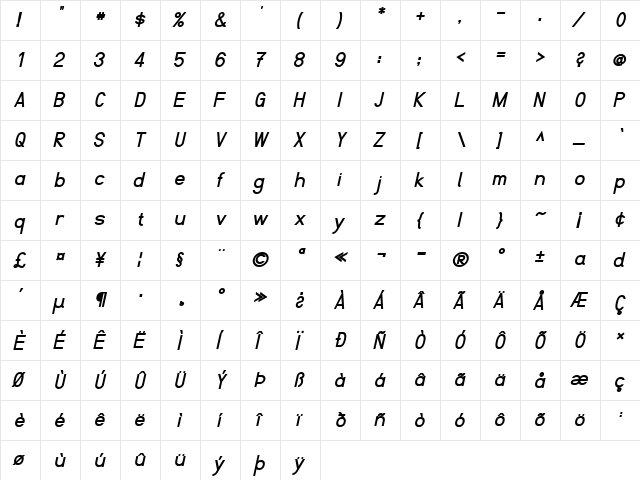
Fibel Nord Bold Italic
| Foundry | Peter Wioegel |
| Designer | Peter Wiegel |
| Year | 1970 |
Design Context for Fibel Nord Typeface
Fibel Nord takes a measured approach to typography — its balanced proportions and neutral character make it a reliable workhorse for both digital and print work. Its italic angle brings a sense of urgency and motion to the letterforms. The heavy weight commands attention and anchors typographic hierarchies.
Pro Tip: Use Fibel Nord for emphasis, pull quotes, and subheadings where its slanted energy can add rhythm to the layout.